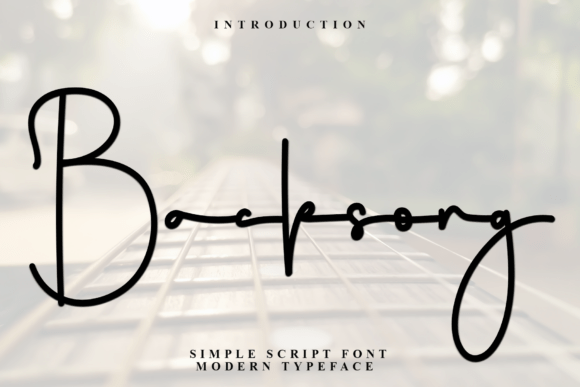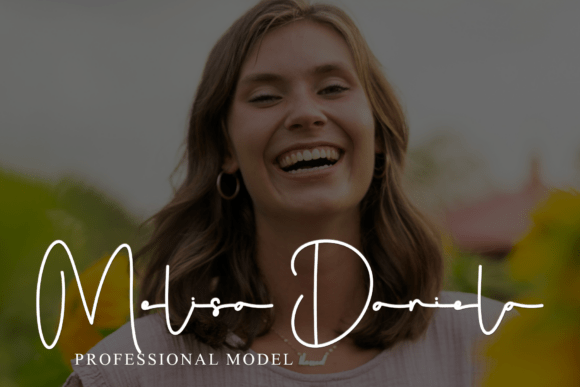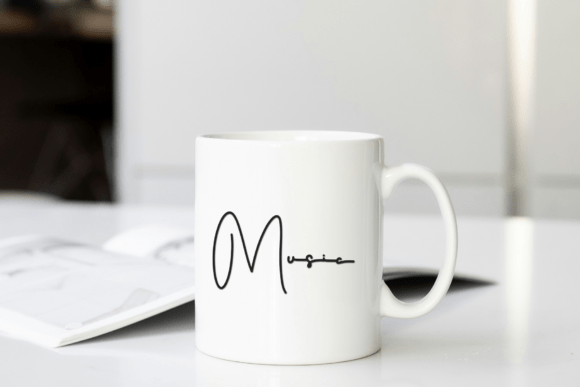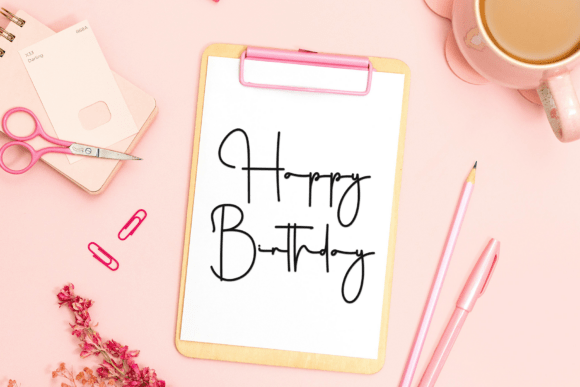
Backsong Font: Elegant Handwritten Script for Signature & Branding
About the Backsong Font
We are excited to introduce Backsong Font, a must-have typeface for any serious designer. Backsong is a flowing handwritten font, described by an elegant touch, perfect for your favorite projects. Fall in love with its incredibly distinct and timeless style and use it to create spectacular designs!
Backsong’s elegant, flowing nature makes it ideal for projects requiring a touch of handwritten charm, such as wedding invitations, logos for boutique brands, or short-form quotes on social media graphics. It excels in headlines and short text blocks, adding a personal and sophisticated feel. However, its script style is less suitable for body text or extended reading, as readability suffers in longer paragraphs.
Consider pairing Backsong with a clean sans-serif like Montserrat for a contemporary contrast, or a classic serif like Garamond for a more traditional feel. A geometric sans-serif like Futura could provide a modern, balanced counterpart, while a playful script like Allura might complement its calligraphic style for layered text effects.
Its core personality is sophisticated and approachable, conveying both elegance and a friendly warmth, making it a versatile choice for brands seeking a balance of luxury and approachability.
Backsong Font Usage Examples
Backsong Font Example